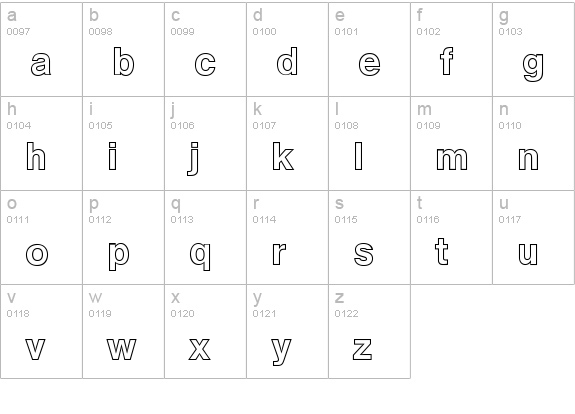
Akzidenz-Grotesk Medium Outline Font Details
Akzidenz-Grotesk Medium Outline is a balanced, medium-weight variant in the Akzidenz typeface family \xE2\x80\x94 well suited to sub-headlines, navigation, and balanced editorial work.
Akzidenz-Grotesk Medium Outline font is a modern and sleek typeface that exudes sophistication and style. Its clean lines and geometric shapes create a bold and impactful look that is perfect for a wide range of design projects. The medium weight of this font strikes the perfect balance between elegance and readability, making it suitable for both headlines and body text. The outline style of Akzidenz-Grotesk Medium adds an extra layer of visual interest, giving your text a striking and eye-catching appearance. Whether used on posters, flyers, websites, or branding materials, this font is sure to make a statement and capture the attention of your audience. The best part is that Akzidenz-Grotesk Medium Outline font is available for free download at FontsMarket.com. This means you can easily access and use this stylish and versatile typeface in your projects without any cost. Don't miss out on the opportunity to enhance your designs with the timeless appeal of Akzidenz-Grotesk Medium Outline font.